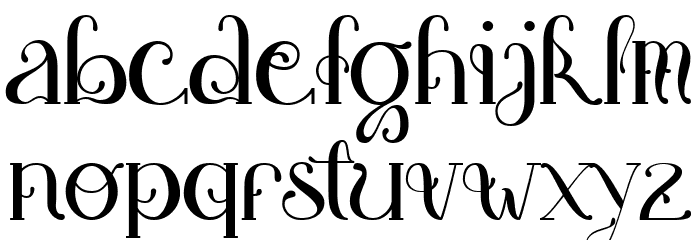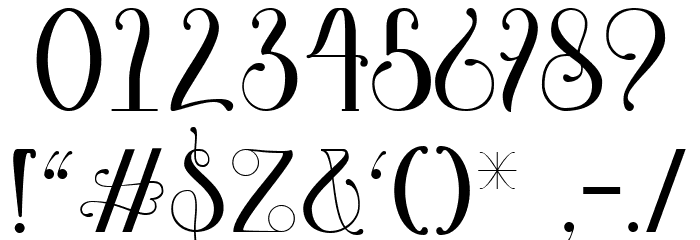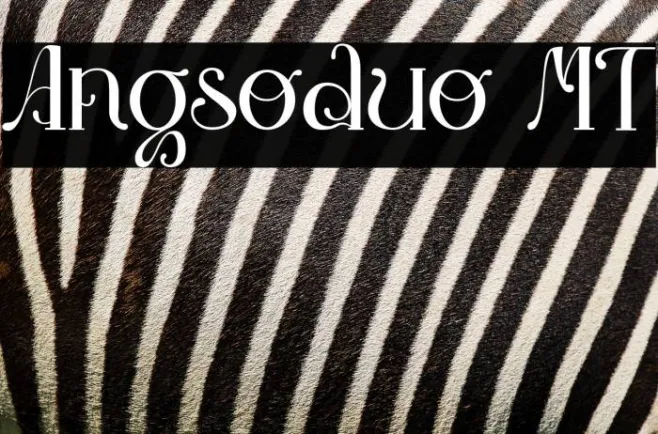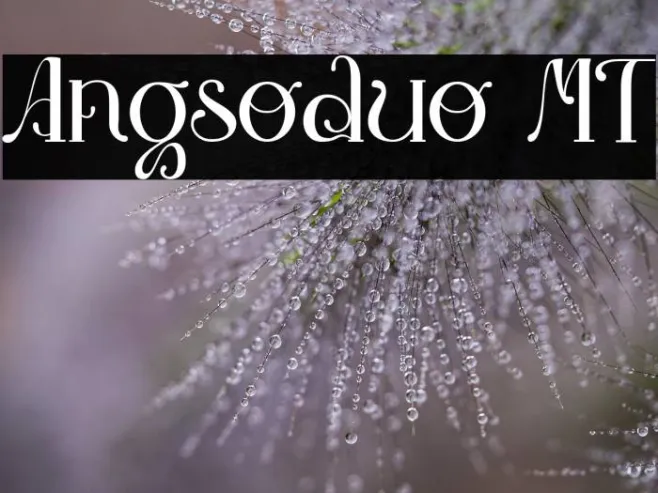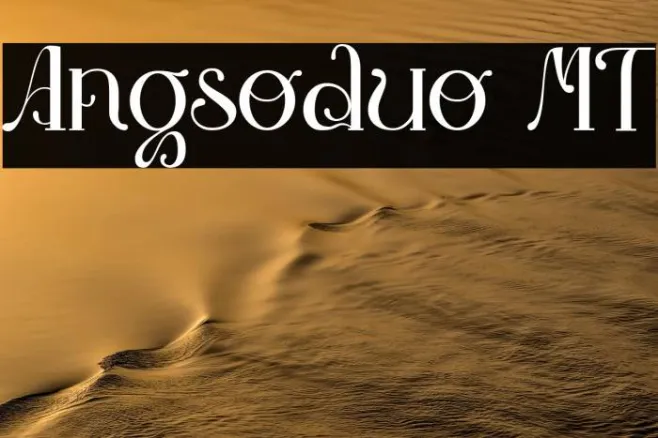
Angsoduo MT Font
This font features an elegant and decorative style, characterized by its flowing curves and intricate details. The uppercase letters exhibit a unique blend of thick and thin strokes, creating a dynamic contrast that adds a sense of sophistication. The lowercase letters maintain a consistent style, with graceful loops and swashes that enhance its ornamental appearance. Numbers and special characters are designed with the same attention to detail, ensuring a cohesive look across all elements. This font's artistic flair makes it suitable for creative and expressive projects.
An elegant, decorative font with flowing curves and intricate details.
- Font: Angsoduo MT
- Proposed Projects: Ideal for wedding invitations, luxury branding, artistic posters, and decorative headlines.
- Use Case: Headlines, Logos, Invitations